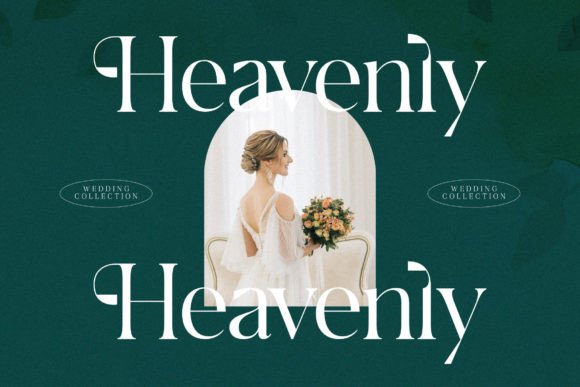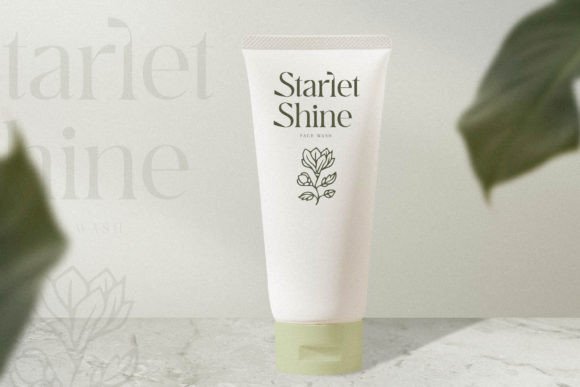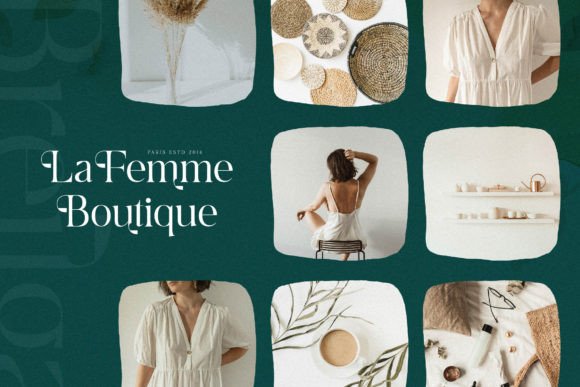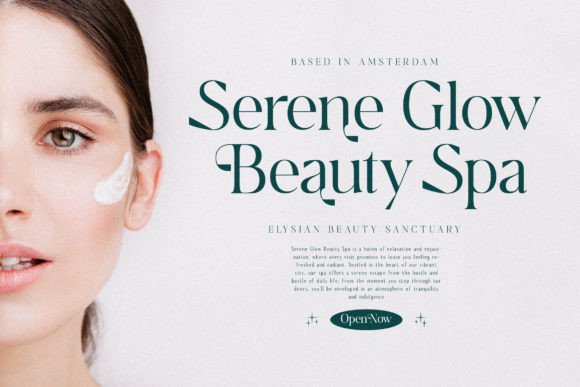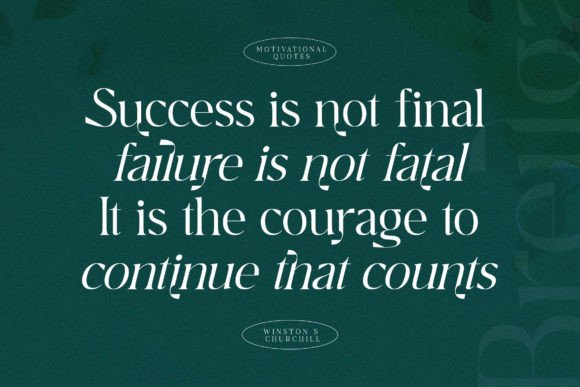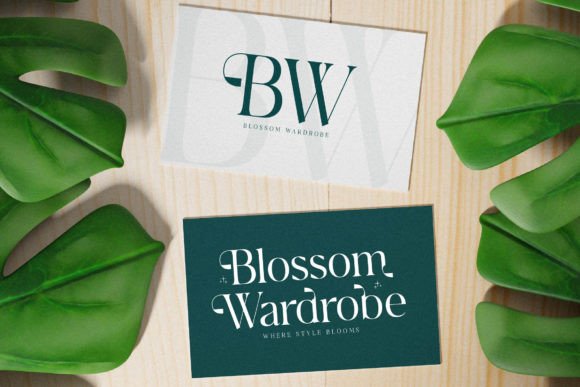
Introducing Breilga Font: The Epitome of Modern Elegance
In the realm of typography, few fonts manage to strike a balance between modernity and classic sophistication. Breilga Font is one such typeface that has garnered attention for its unique style and contemporary look. This elegant font is designed to cater to a wide array of creative projects, making it a favorite among designers and crafters. In this article, we will delve into the characteristics of Breilga Font, its versatility, and why it has become a go-to choice for various design needs.
The Unique Style of Breilga Font
Breilga Font stands out for its sleek lines, refined aesthetic, and a certain luxurious feel that it imparts to any design. Its modern and classic typeface characteristics make it versatile enough to be used in various contexts, from elegant logos and high-end fashion branding to movie titles and book covers. The font’s design ensures that it remains legible and impactful, whether used in headlines or body text.
One of the key advantages of Breilga Font is its incredible versatility. Designers can use it to create:
- Elegant & Luxurious Logos: The sophisticated look of Breilga makes it perfect for brands aiming to convey luxury, elegance, and high quality.
- Book or Movie Title Design: Its classic yet modern appeal makes it an excellent choice for titles, adding a touch of glamour and sophistication.
- Fashion Brand: For fashion brands, Breilga offers a stylish and contemporary look that aligns well with current trends and timeless elegance.
- Magazine: Whether it’s the cover or the interior pages, Breilga can elevate the overall design and readability of a magazine.
- Clothes: For clothing brands or fashion labels, this font can add a unique and stylish flair to product descriptions or brand storytelling.
- Lettering and Quotes: Its aesthetic appeal also makes it suitable for lettering projects and creating visually striking quotes.
Why Designers and Crafters Love Breilga Font
Designers and crafters appreciate Breilga Font for several reasons:
- Unique Style: In a sea of fonts, Breilga’s distinctive style helps projects stand out.
- Readability: Despite its elegant and sometimes intricate design, Breilga maintains high readability, making it suitable for both headings and body text.
- Flexibility: It can be used in digital formats, such as website headers or social media graphics, and in print, like brochures or posters.
- Timeless Appeal: Unlike trends that fade, Breilga’s classic undertones ensure it remains relevant and stylish over time.
How to Make the Most of Breilga Font
To maximize the potential of Breilga Font in your designs:
- Pair it Wisely: Experiment with font pairings to complement Breilga’s elegance. A sans-serif font for body text can create a balanced and appealing design.
- Adjust Weight and Size: Take advantage of the font’s various weights and sizes to create visual hierarchy and emphasize key messages.
- Play with Colors: While Breilga looks stunning in black and white, experimenting with colors can add another layer of depth and emotion to your design.
Breilga Font is a modern and classic typeface that brings a unique blend of elegance and contemporary style to any design project. Its versatility, readability, and timeless appeal make it a valuable asset for designers and crafters looking to elevate their work. Whether you’re creating a luxurious logo, a stylish magazine, or an elegant book cover, Breilga Font is sure to enhance your design and leave a lasting impression.